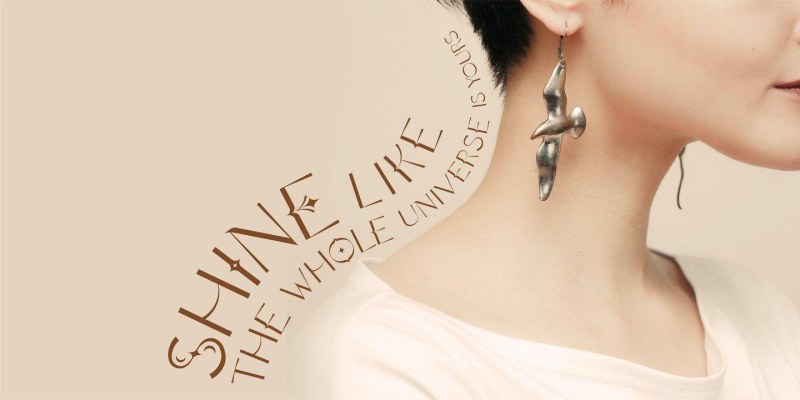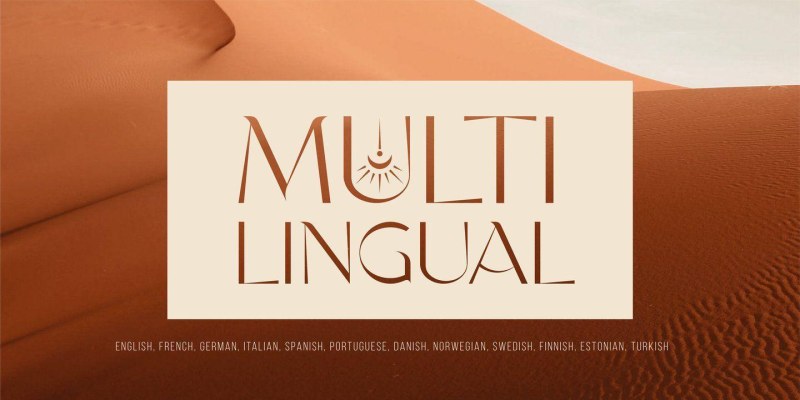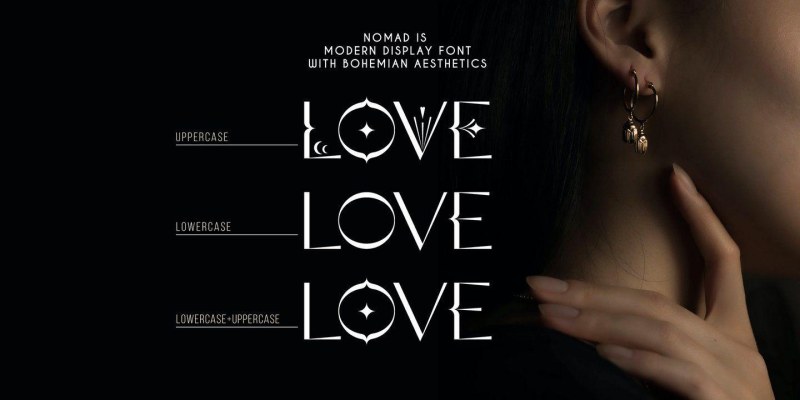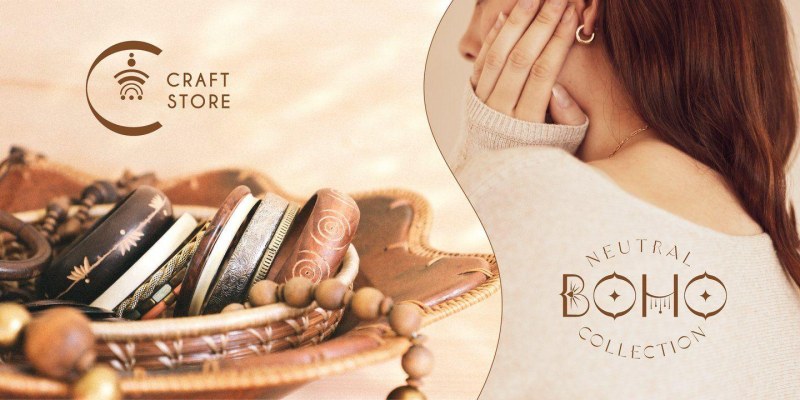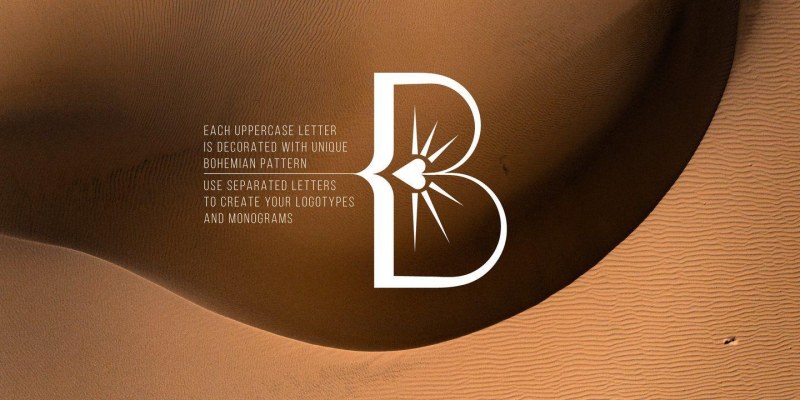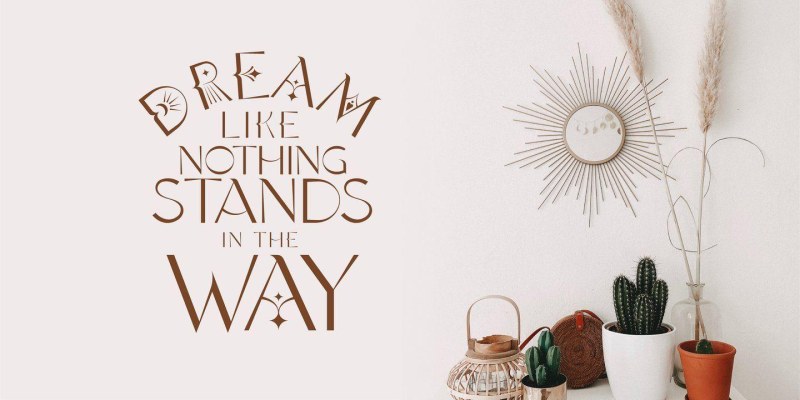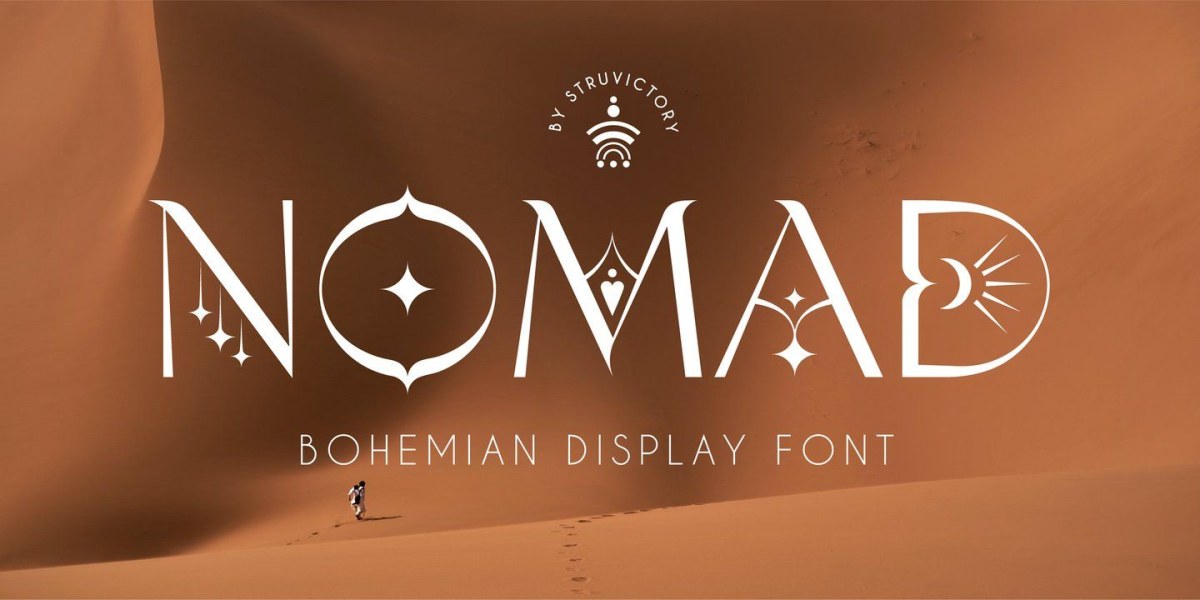
Nomad Decorative Font
NOMAD is a modern display capital font with bohemian motives. The font is created in classic proportions and decorated with celestial and boho decor. NOMAD uppercase is decorated with bohemian patterns. The font is suitable for the design on the theme of astrology, mysticism, spirituality, witchcraft, magic, esotericism.
Nomad Decorative Font is a Display Fonts font that brings a professional and versatile look to your projects. NOMAD is a modern display capital font with bohemian motives.